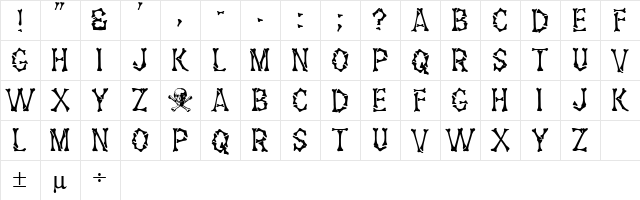
BoneFont Normal Regular
Design Context for BoneFont Normal Typeface
BoneFont Normal is a composed and adaptable typeface that performs quietly and consistently across a wide range of design contexts.
Pro Tip: Use BoneFont Normal in both headline and body roles to test its range before committing to a single application.